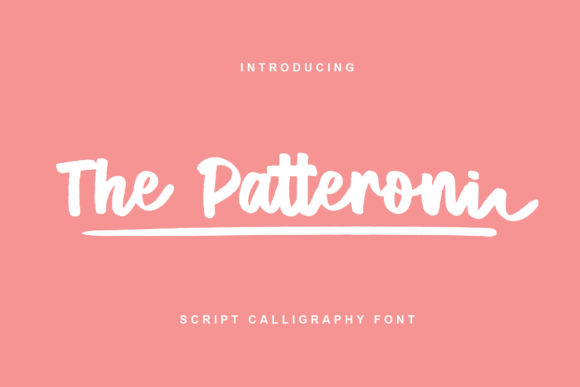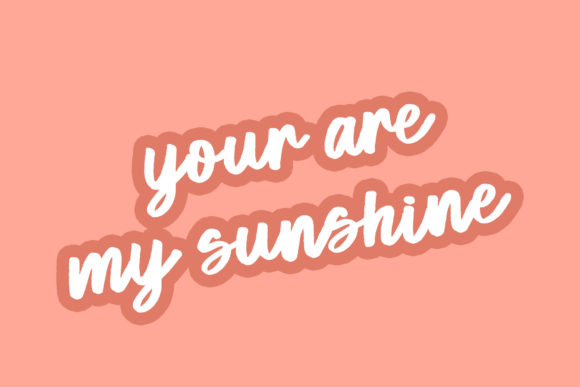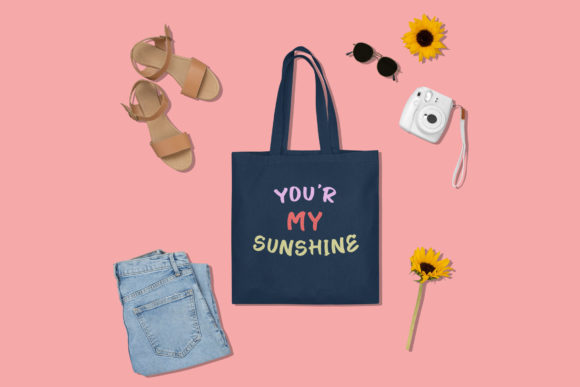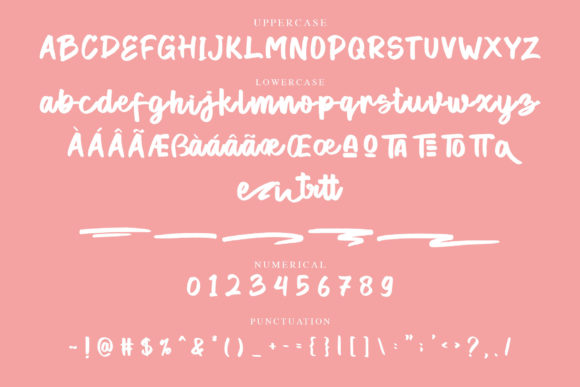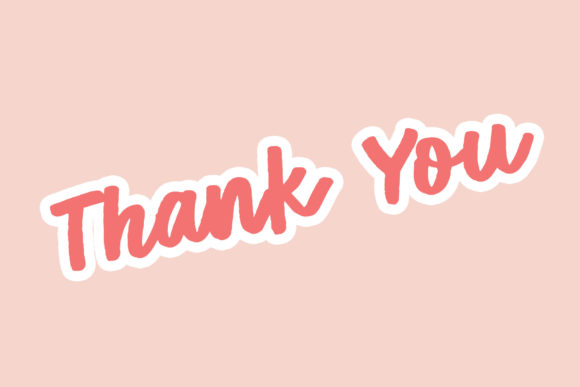
The Patteroni Script Font
About The Patteroni Script Font
The Patteroni Script is a simple, clean and friendly handwritten font. No matter the topic, this font will be an incredible asset to your fonts’ library, as it has the potential to elevate any creation.